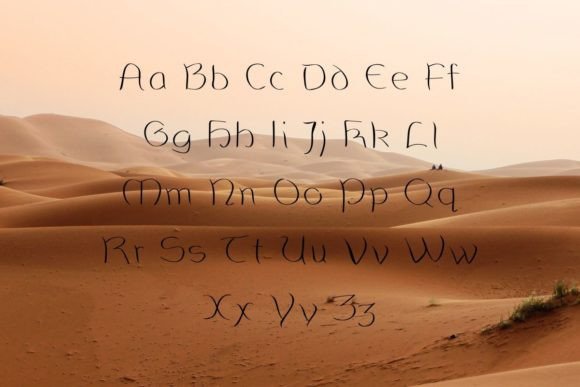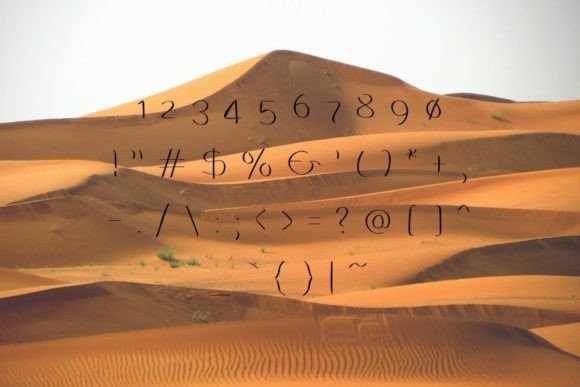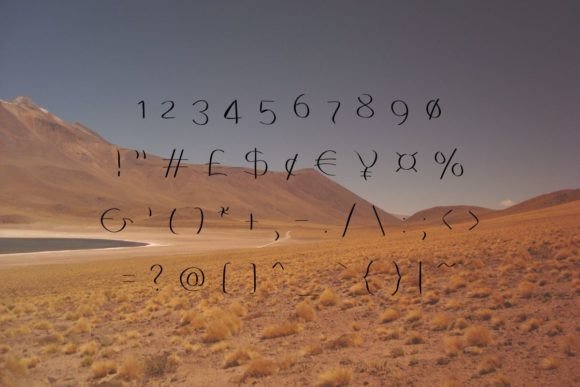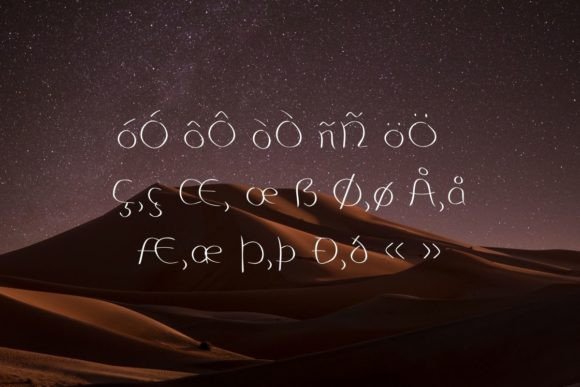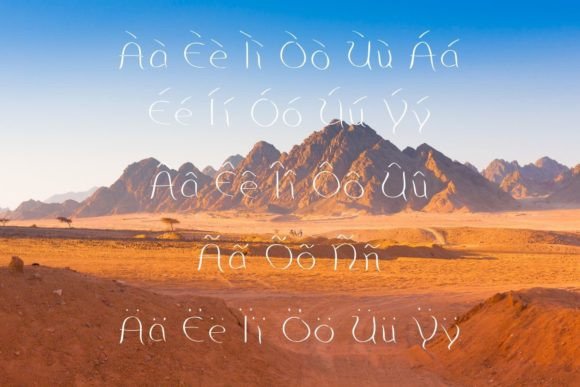
The Abydossian Font: A Fun and Quirky Handwritten Delight
I’ll never forget the time I was working on a project for a client who wanted a playful, yet elegant font to match their brand’s personality. I had spent hours scouring the internet for the perfect font, but nothing seemed quite right. That was until I stumbled upon the Abydossian font. **It was love at first sight!** ✨
Abydossian is a fun and quirky handwritten font that has quickly become one of my go-to’s for creative projects. In this article, I’ll share with you what I love about this font, its quirks and limitations, and provide a practical guide on how to use it on various platforms.
- ✨ Unique and quirky handwritten style that’s perfect for creative projects
- 💃 Supports OpenType features, glyphs, and stylistic alternates for added versatility
- 🎨 Comes with a range of diacritics and special characters for international use
While Abydossian is an amazing font, it’s not perfect. Here are a few things to keep in mind:
- ⚠️ Some characters may not work well in all contexts, such as in combination with certain languages or scripts
- 🤔 The font may not be suitable for very formal or professional projects, as it has a distinctly playful tone
The Story Behind Abydossian
Abydossian was designed by a talented font designer who wanted to create a font that was both fun and functional. Inspired by the quirky, handwritten styles of the past, Abydossian is the perfect blend of playfulness and elegance. **The designer wanted to create a font that would make people smile, and I think they’ve succeeded!** 🙂
Q: Is Abydossian suitable for body text?
A: While Abydossian is highly legible, it’s best suited for headlines, titles, and short blocks of text. For longer body text, you may want to choose a more traditional font.